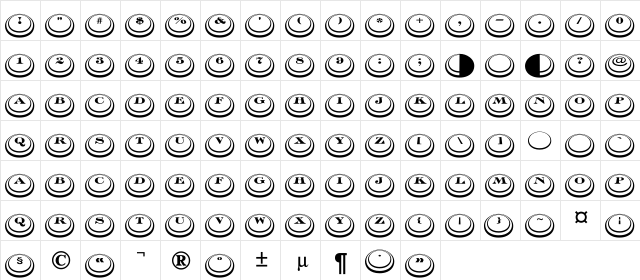
a_DiscoSerifDblDn3D Regular
Design Context for a_DiscoSerifDblDn3D Typeface
a_DiscoSerifDblDn3D brings classic typographic sensibility to the table — its serifs and measured letterforms reflect centuries of print heritage.
Pro Tip: Use a_DiscoSerifDblDn3D for editorial body copy and considered headline work. Pair with a neutral sans for UI elements or captions to create a classic hierarchy.